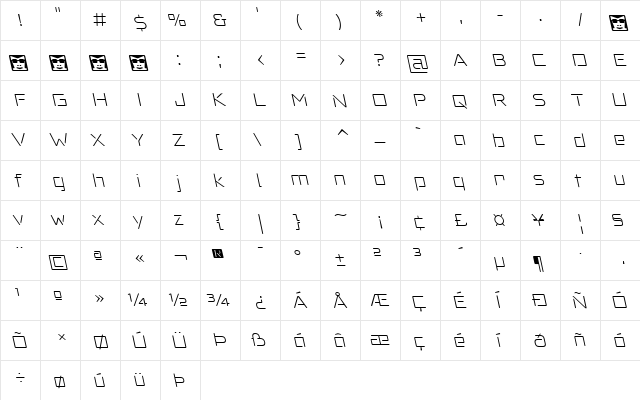
Anoxic Light Italic Font Preview
| Foundry | deFharo |
| Designer | Fernando Haro |
Design Context for Anoxic Light Typeface
Anoxic Light takes a measured approach to typography — its balanced proportions and neutral character make it a reliable workhorse for both digital and print work. The dynamic lean of this cut emphasises speed and emphasis in any layout. Its slender proportions lend an understated elegance to any composition.